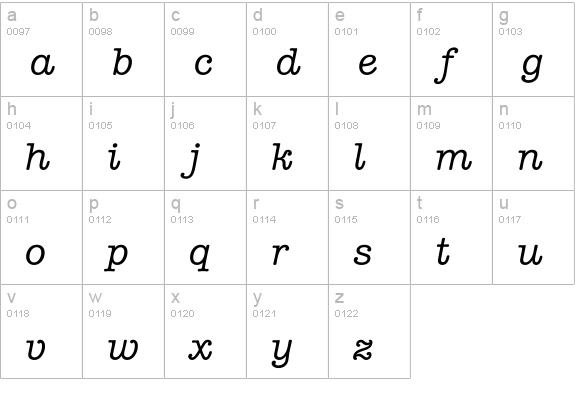
RomtypewriterItalic Font Details
RomtypewriterItalic font is a versatile and stylish typeface that brings a touch of elegance and sophistication to any design project. With its sleek and modern italic styling, this font is perfect for adding a unique and eye-catching element to your creations. What sets RomtypewriterItalic font apart is its seamless blend of classic typewriter aesthetics with a contemporary twist. The slanted italic design gives it a dynamic and engaging look, making it ideal for a wide range of applications, from branding and advertising to editorial design and web graphics. Best of all, RomtypewriterItalic font is available for free download at FontsMarket.com. This means you can easily access and use this stunning font in your projects without any cost. So why wait? Add a touch of sophistication to your designs today with RomtypewriterItalic font.